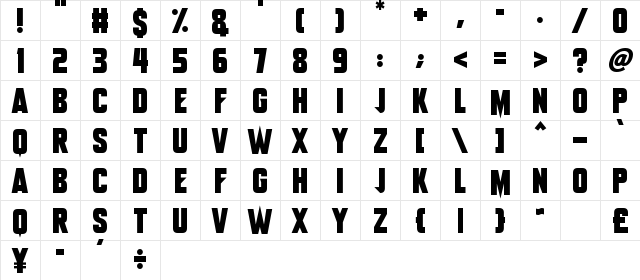
Monster Mech Regular
Monster Mech Family
Design Context for Monster Mech
Monster Mech is a composed and adaptable typeface that performs quietly and consistently across a wide range of design contexts.